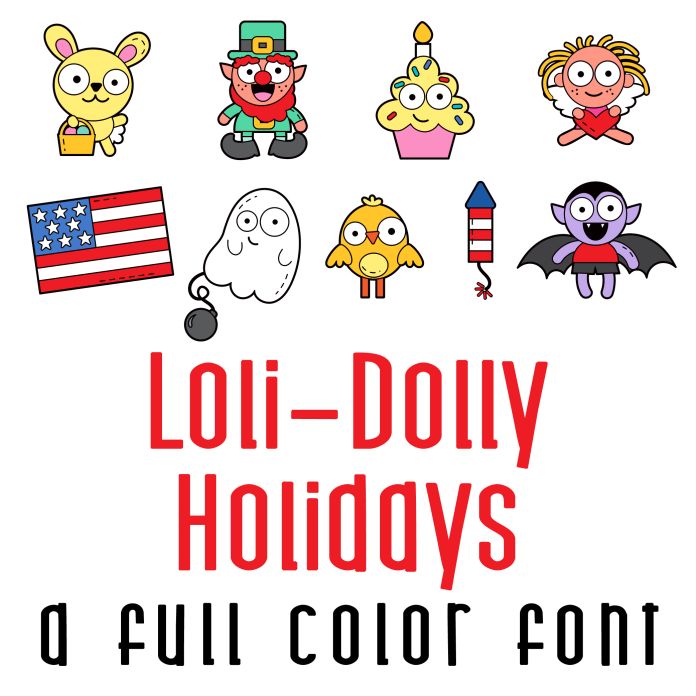
This fun full color font features 26 stitched cute images of holiday imagery! Perfect for classrooms, teachers, gifts, decor, scrap book pages, planner stickers and more!